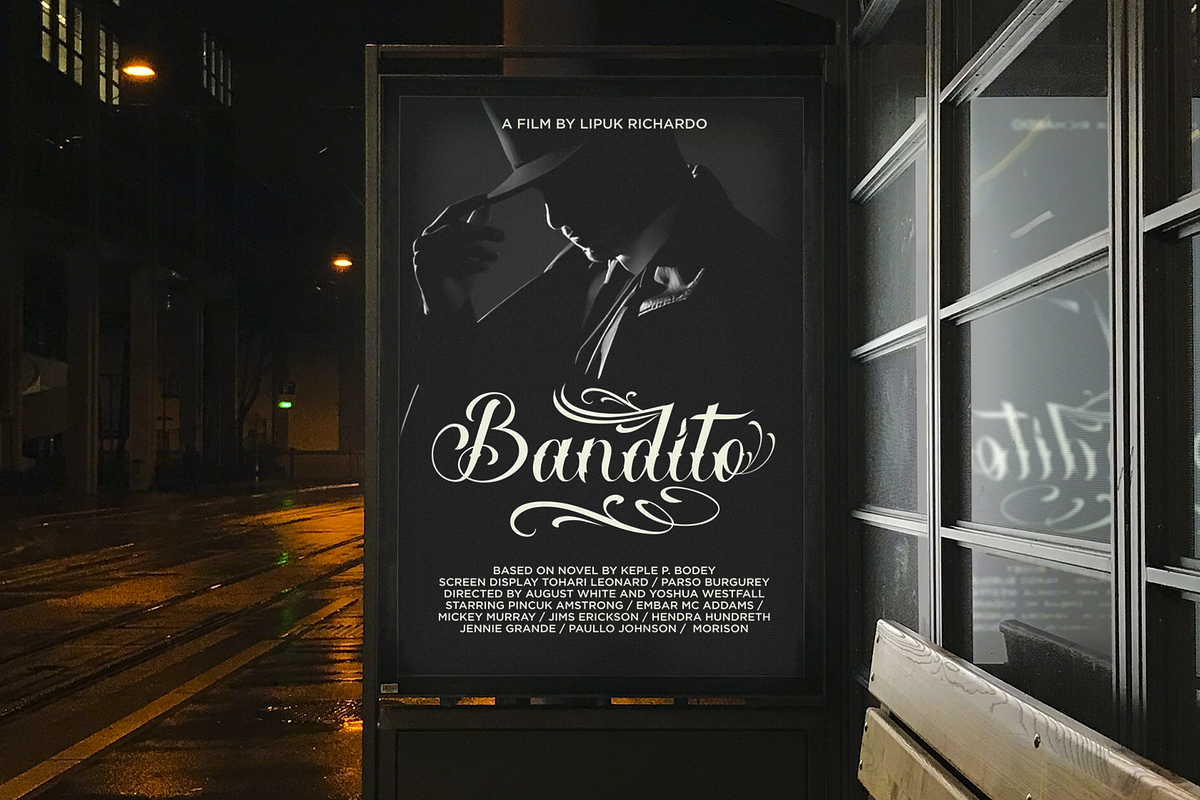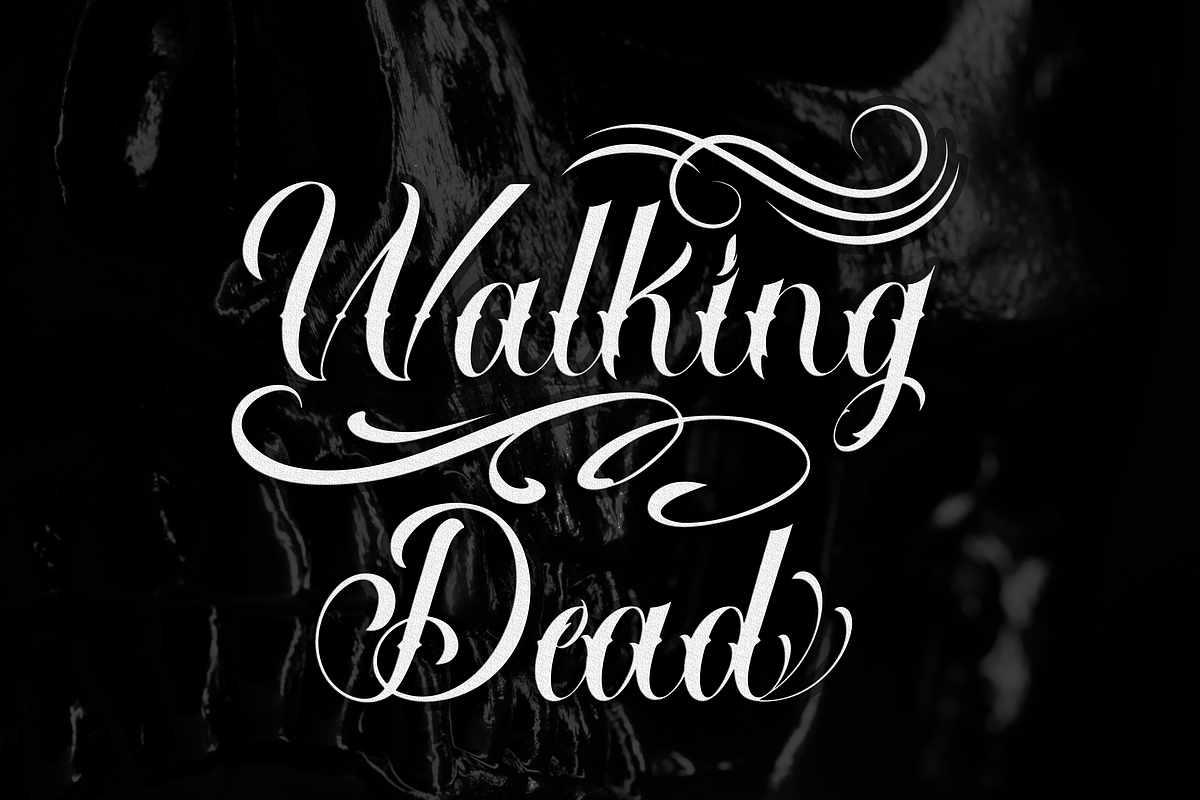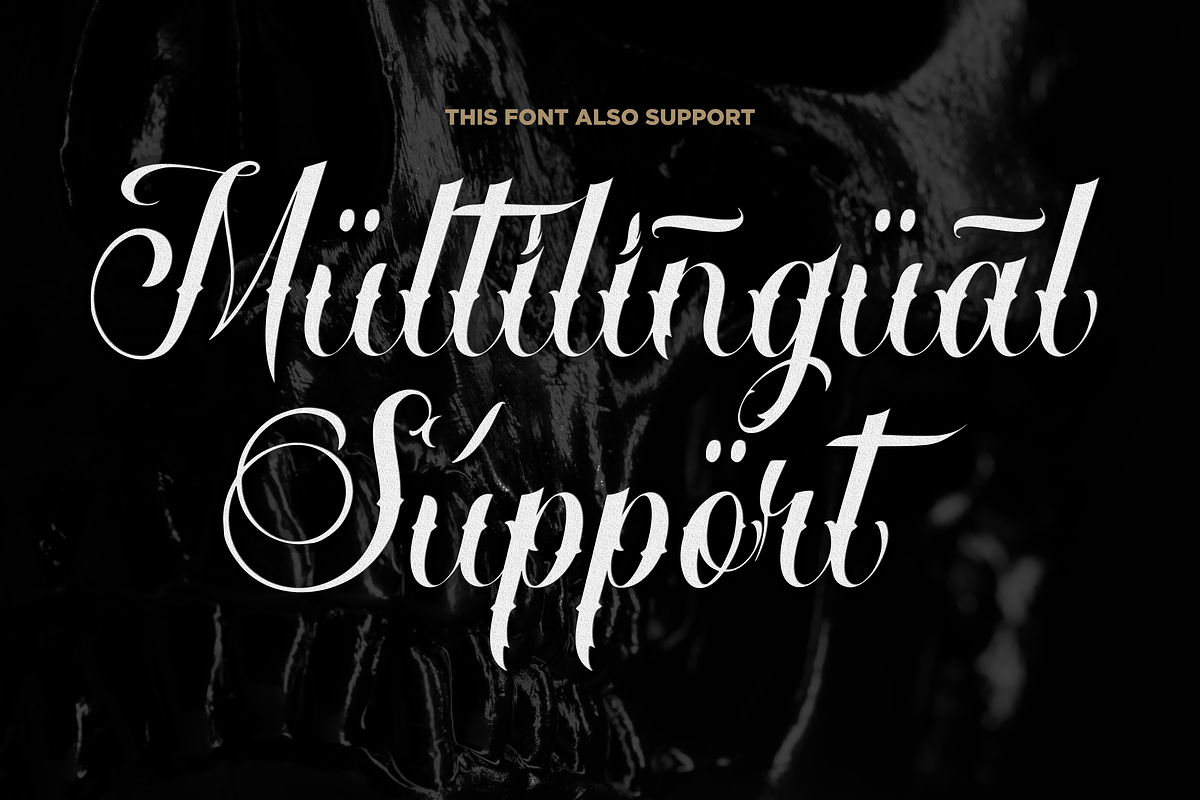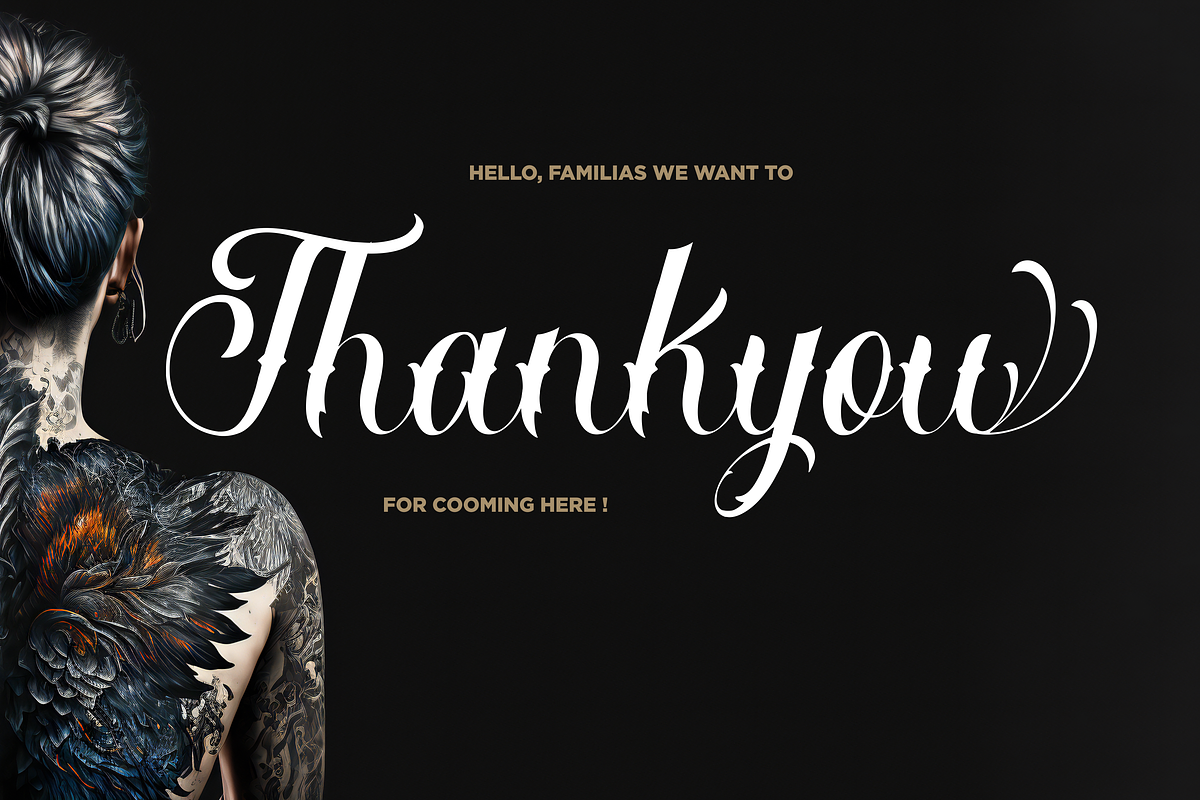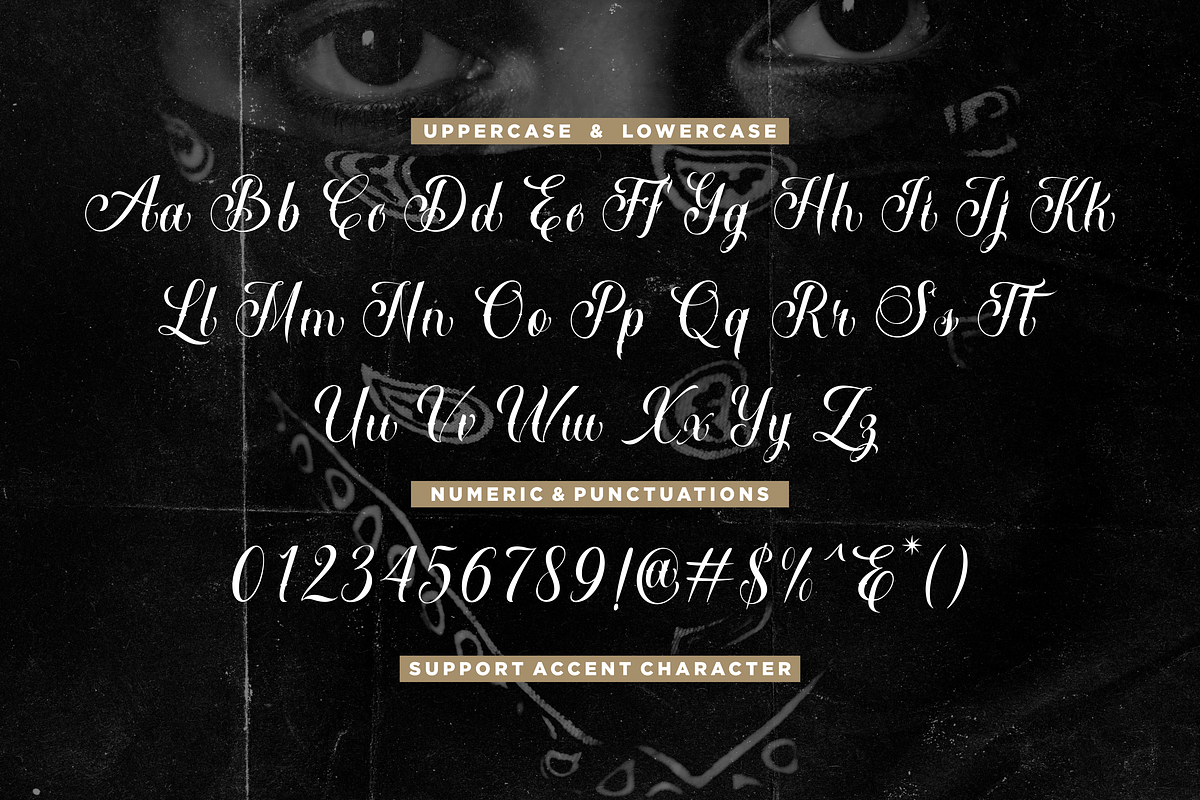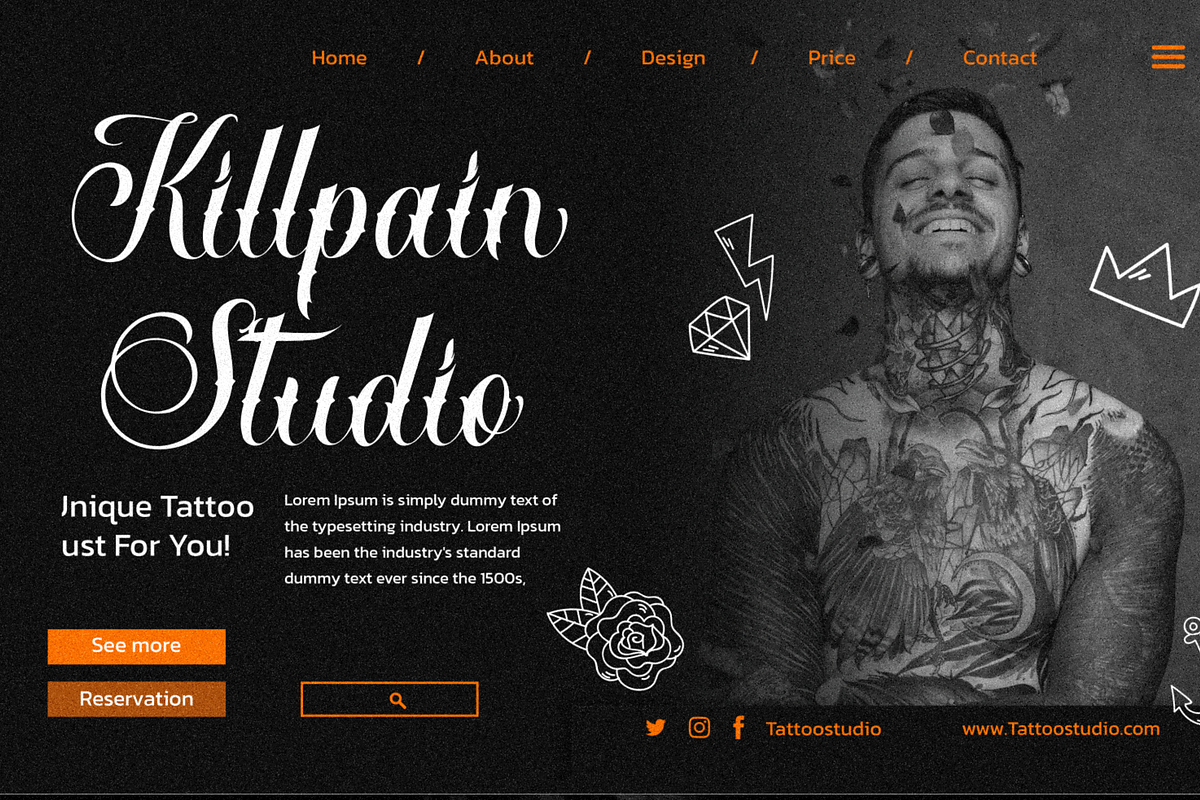
Ruthlock - Tattoo Script Font
Introducing Ruthlock, a thoughtfully crafted modern script tattoo font by Essentials Studio. Exhibiting a bold yet beautiful aesthetic, it seamlessly marries elegance with impact. This font is exquisitely suited for branding initiatives, or as a standout choice for tattoo studios desiring a unique and striking typographical presence. Experience the harmonious blend of daring boldness and timeless beauty with Ruthlock, Enjoy your designs touch with our masterpiece.